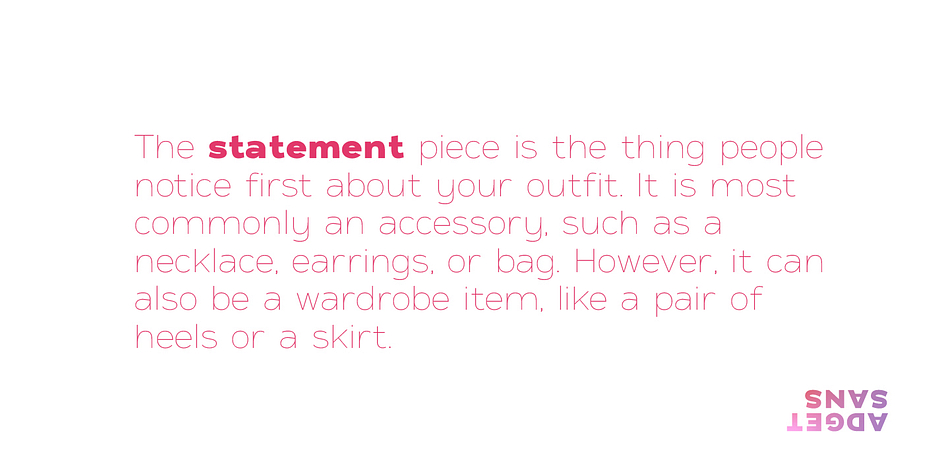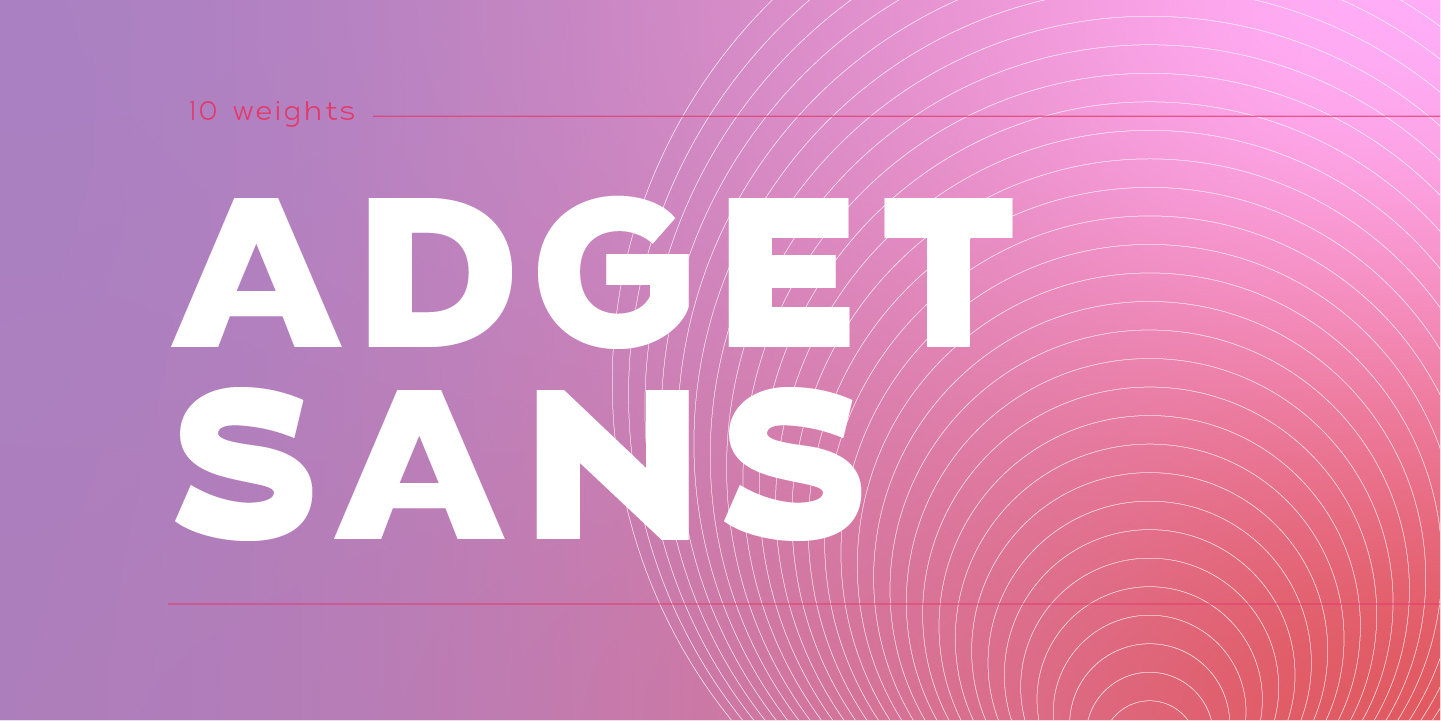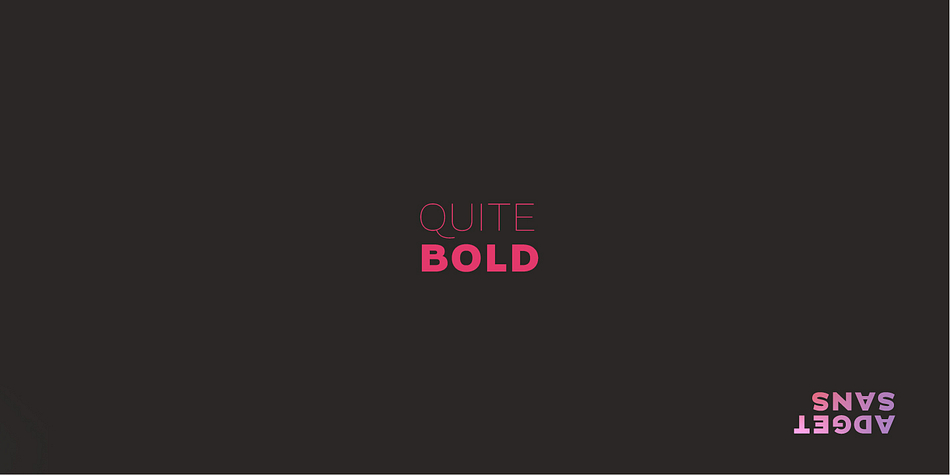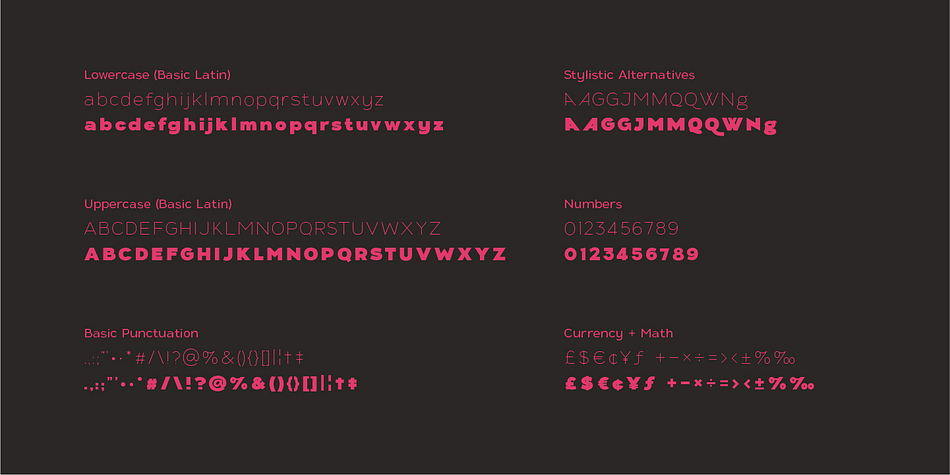
Adget Sans is a sans serif font family. This typeface has eleven styles and was published by wearecolt.
Adget Sans is a modern, strong statement typeface with clean lines and big curves.